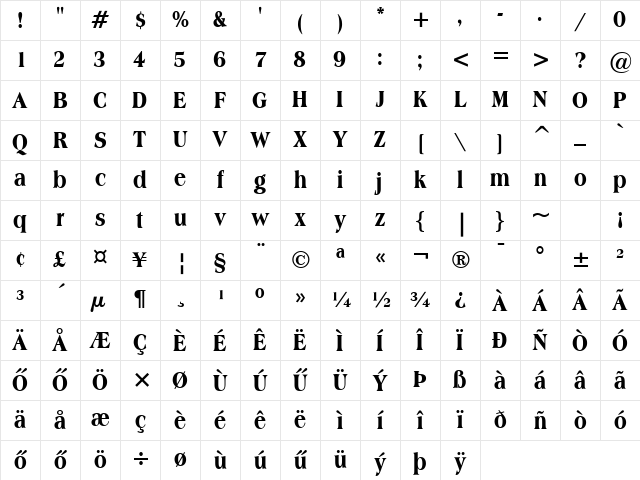
Americana EXCHU Extra Bold Condensed
Style: Extra Bold Condensed
Design Context for Americana EXCHU
Americana EXCHU is a composed and adaptable typeface that performs quietly and consistently across a wide range of design contexts. Its bold stroke weight gives it real presence on the page. Its narrow stance lets it pack a punch even in space-constrained designs.